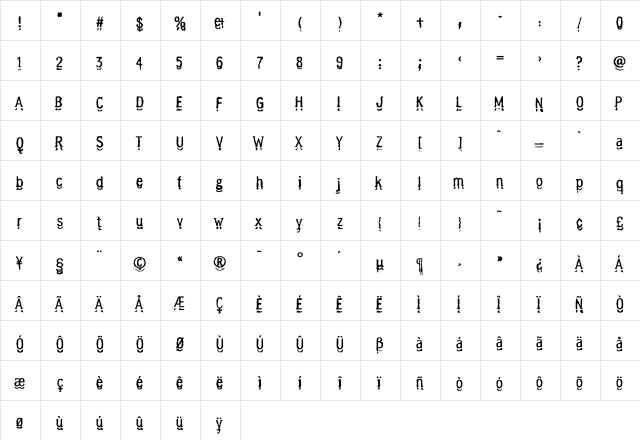
IndecisionBasic Regular
Design Context for IndecisionBasic Typeface
IndecisionBasic is a composed and adaptable typeface that performs quietly and consistently across a wide range of design contexts.